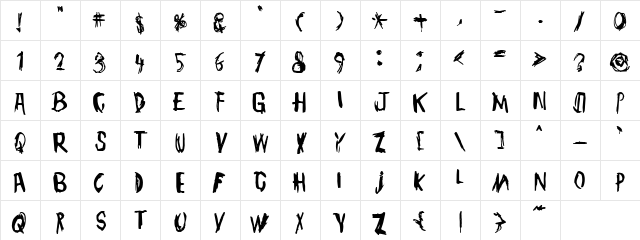
TMBG John Henry Regular Free Font
TMBG John Henry Regular
Design Context for TMBG John Henry
TMBG John Henry is a composed and adaptable typeface that performs quietly and consistently across a wide range of design contexts.